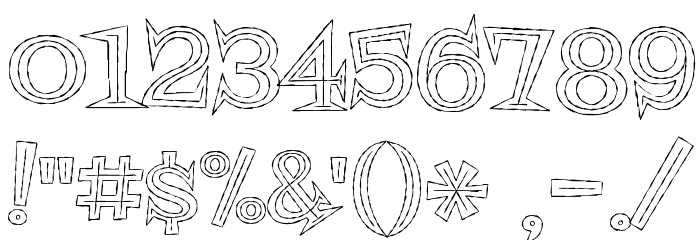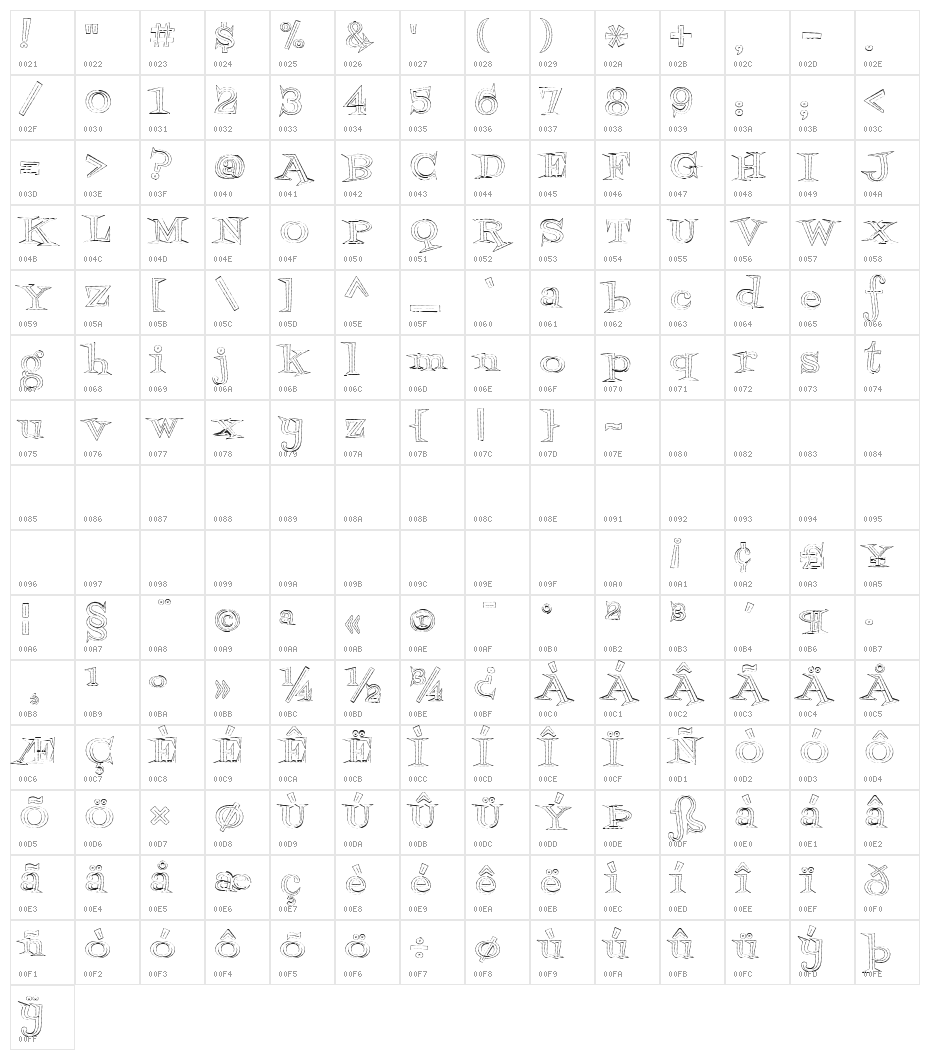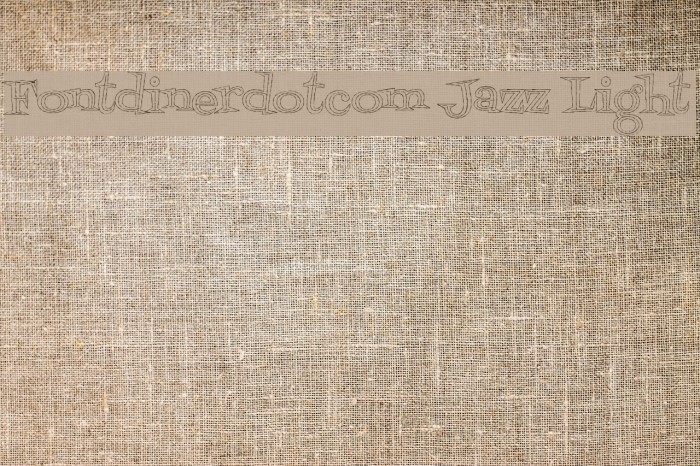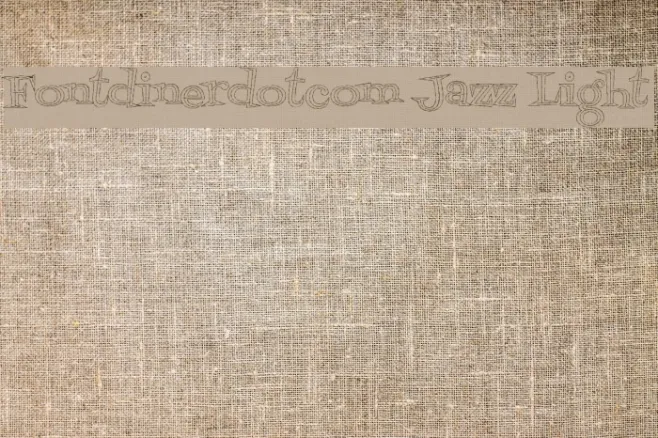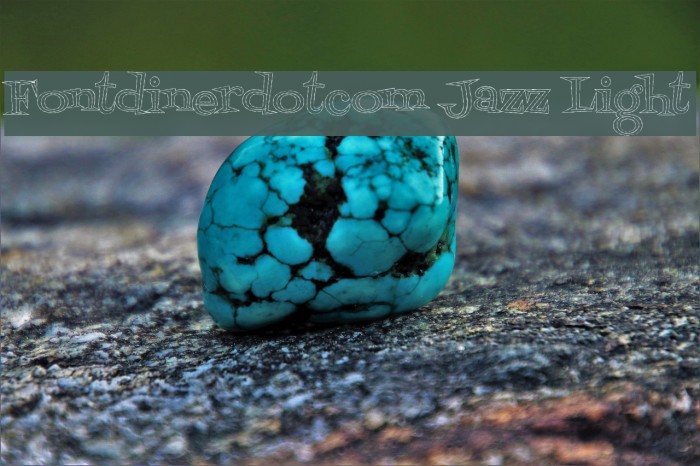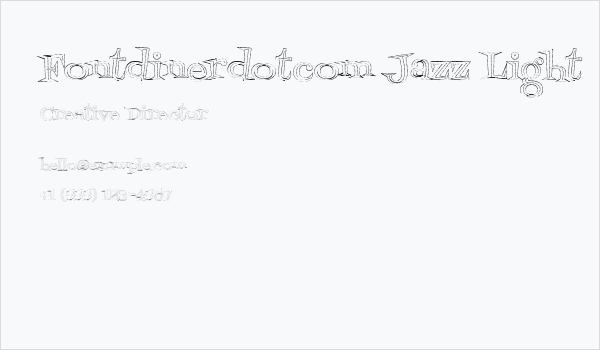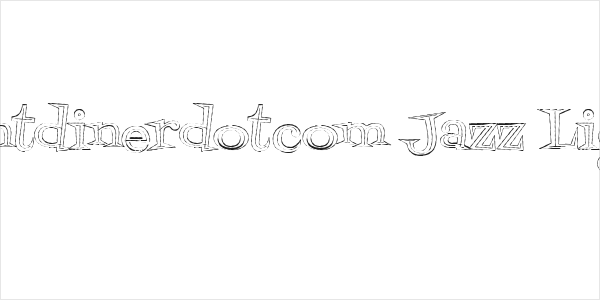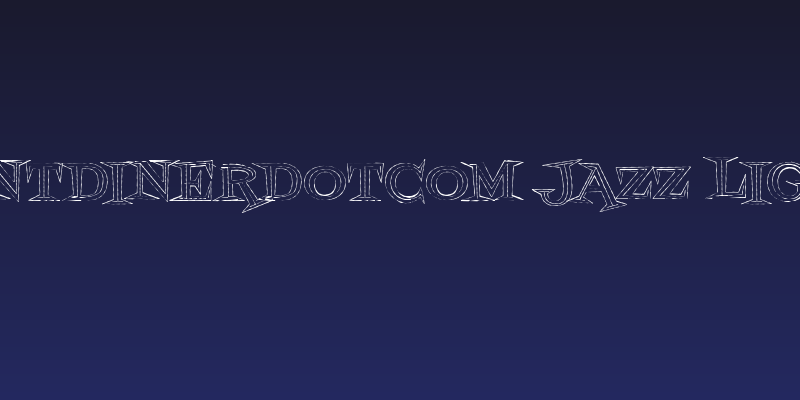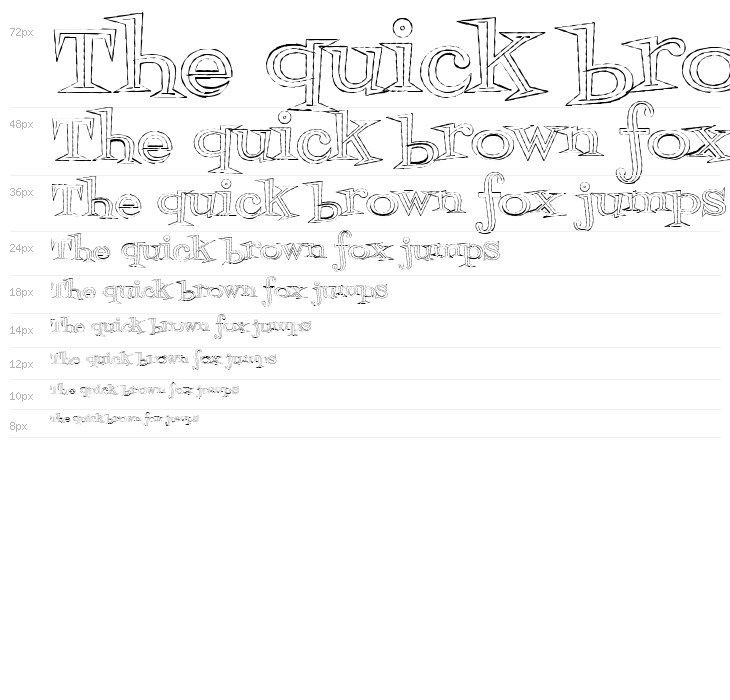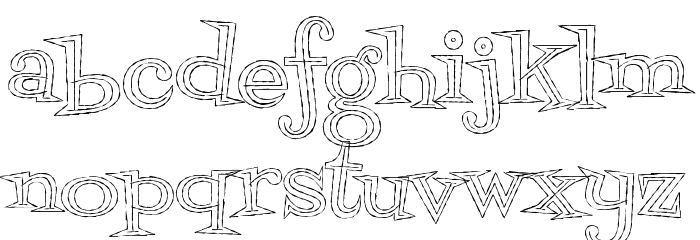
Fontdinerdotcom Jazz Light Font
Fontdinerdotcom Jazz Light Description
This font features a playful and retro design, reminiscent of mid-20th century aesthetics. The characters are outlined with a double line, giving them a dimensional appearance. The uppercase letters are bold and angular, while the lowercase letters have a more rounded and whimsical style. Numbers and special characters maintain the same playful and dynamic feel, making the font suitable for creative and eye-catching designs. The overall look is both nostalgic and modern, perfect for projects that require a touch of vintage flair.
| Proposed Projects | Ideal for retro-themed posters, vintage branding, playful invitations, and creative headlines. |